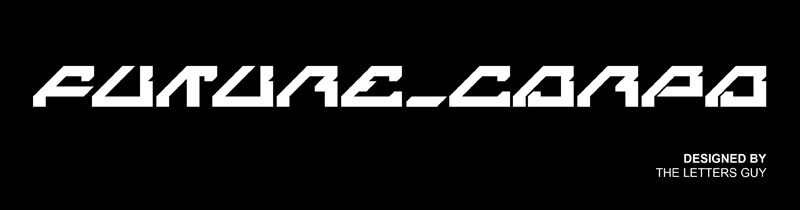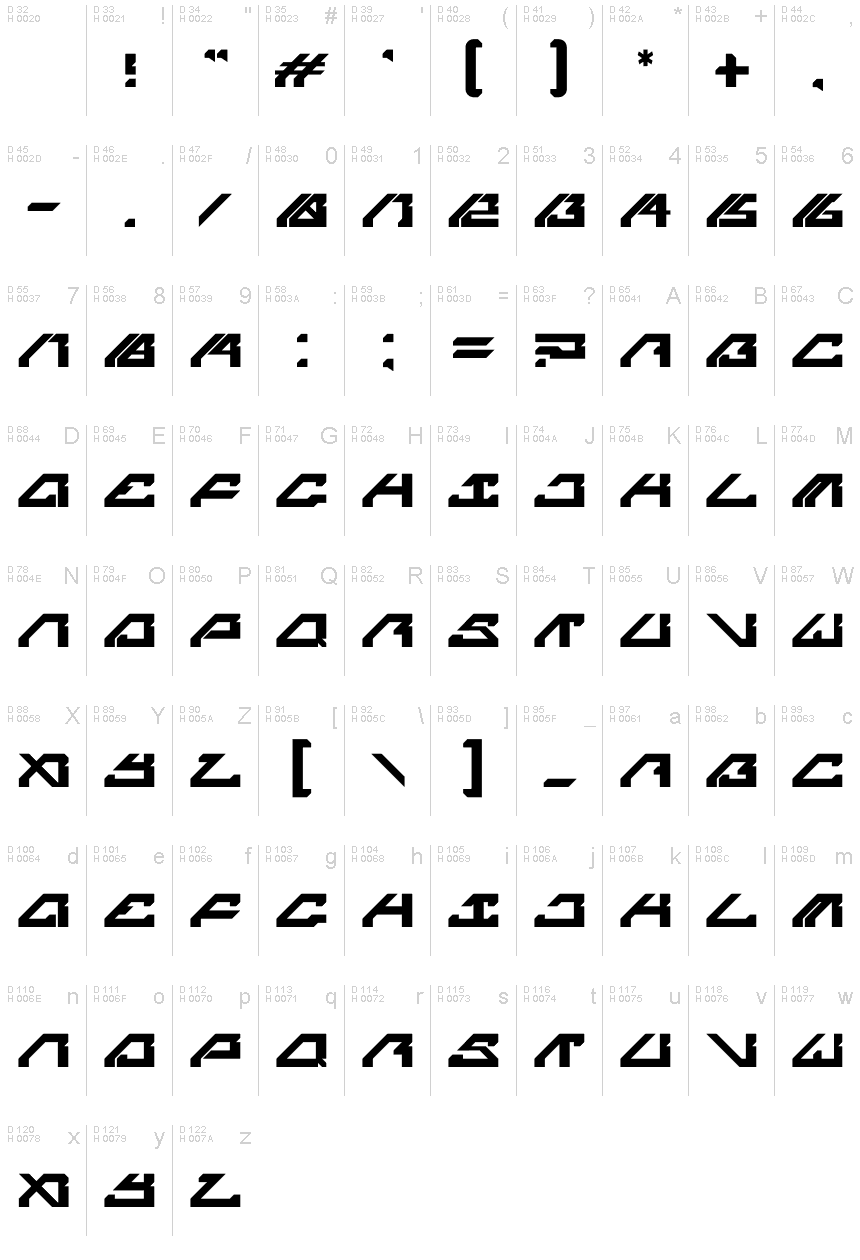
Future Corpo SemiBold
The Future Corpo SemiBold font, designed by The Letters Guy, is a display typeface that exudes a futuristic vibe. Its extra-expanded width and bold weight make it perfect for projects that demand attention and a modern touch. From sleek website headers to eye-catching advertisements and even branding materials, this font will elevate any design with its unique style. Whether you're creating a tech-focused campaign or simply want to stand out from the crowd, Future Corpo SemiBold is the perfect choice for making a statement.